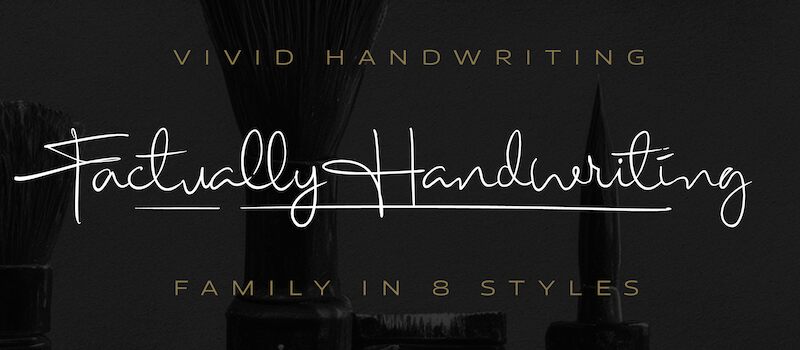
Factually Handwriting PERSONAL Regular
Factually Handwriting by Mans Greback is the epitome of elegance, combining a touch of modernity with old-school charm. Its extra-light weight gives it a delicate touch, making it perfect for creative projects such as wedding invitations, greeting cards, and product packaging. This handwritten font has an authentic feel that allows it to be used for branding projects or even blog titles. With its unique texture and subtle curves, Factually Handwriting is sure to captivate your audience's attention and add a personal touch to any project. Get ready to take your designs up a notch with this stunning typeface!
Use undercore _ anywhere in a to make a swash.
Example: Hand_Signature
Use multiple underscores to make different swashes.
Example: Candy___Bars
Use * to make flowers!
Beautiful*Spring
Blue***Roses